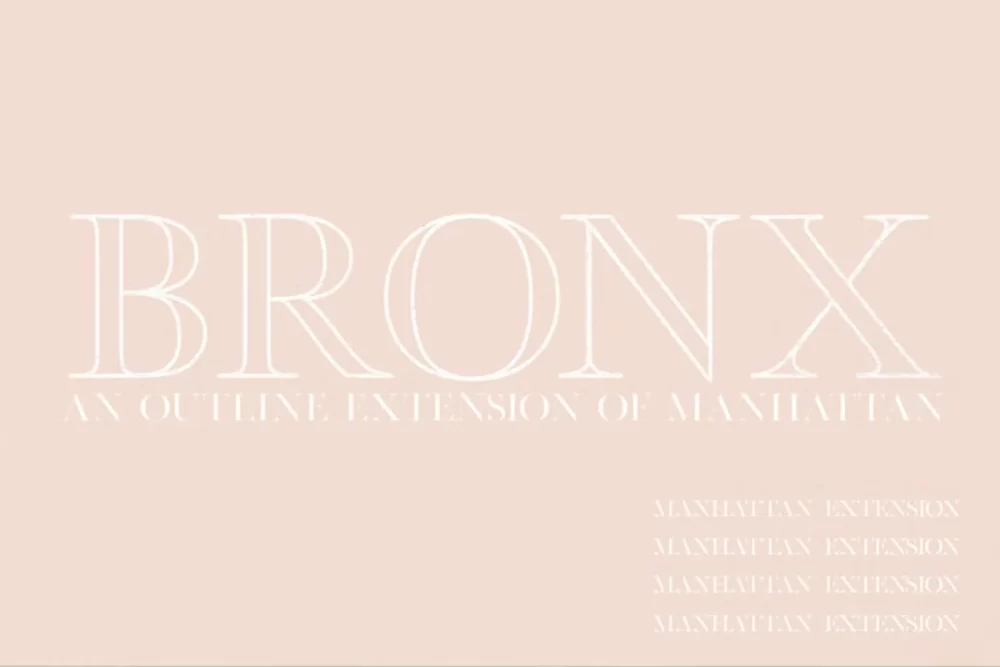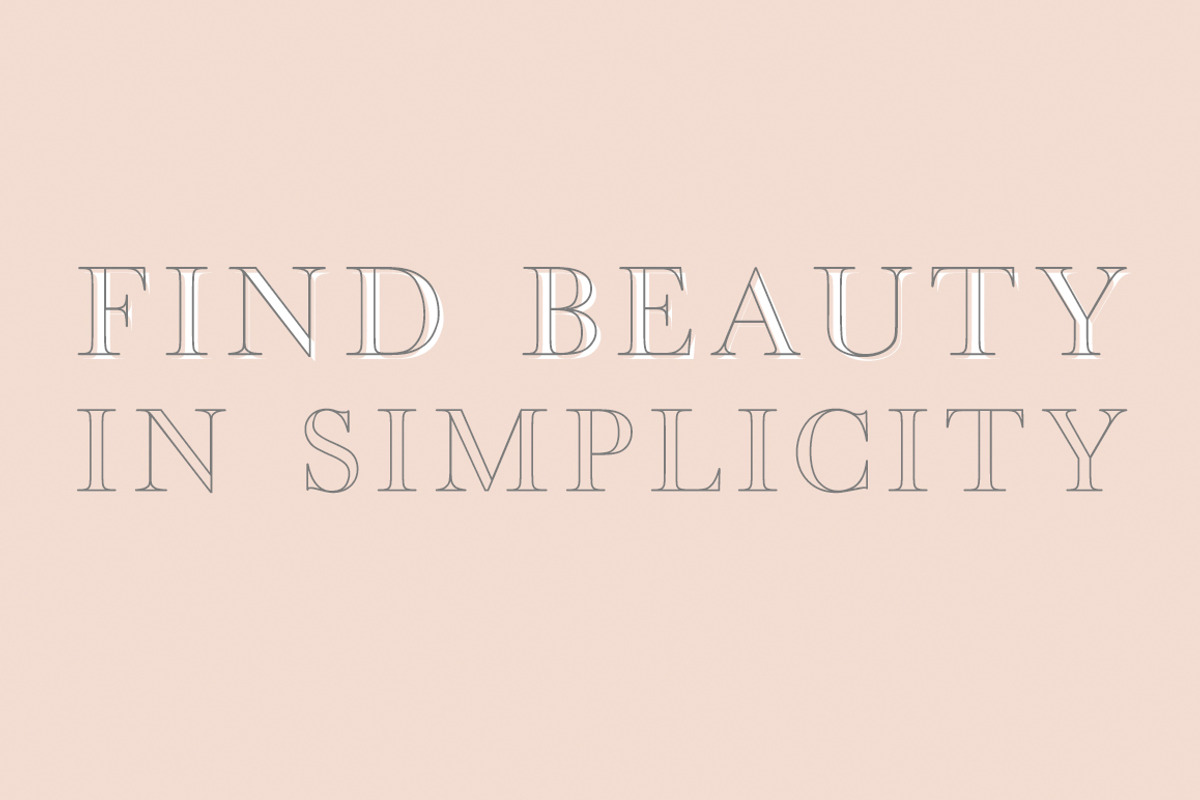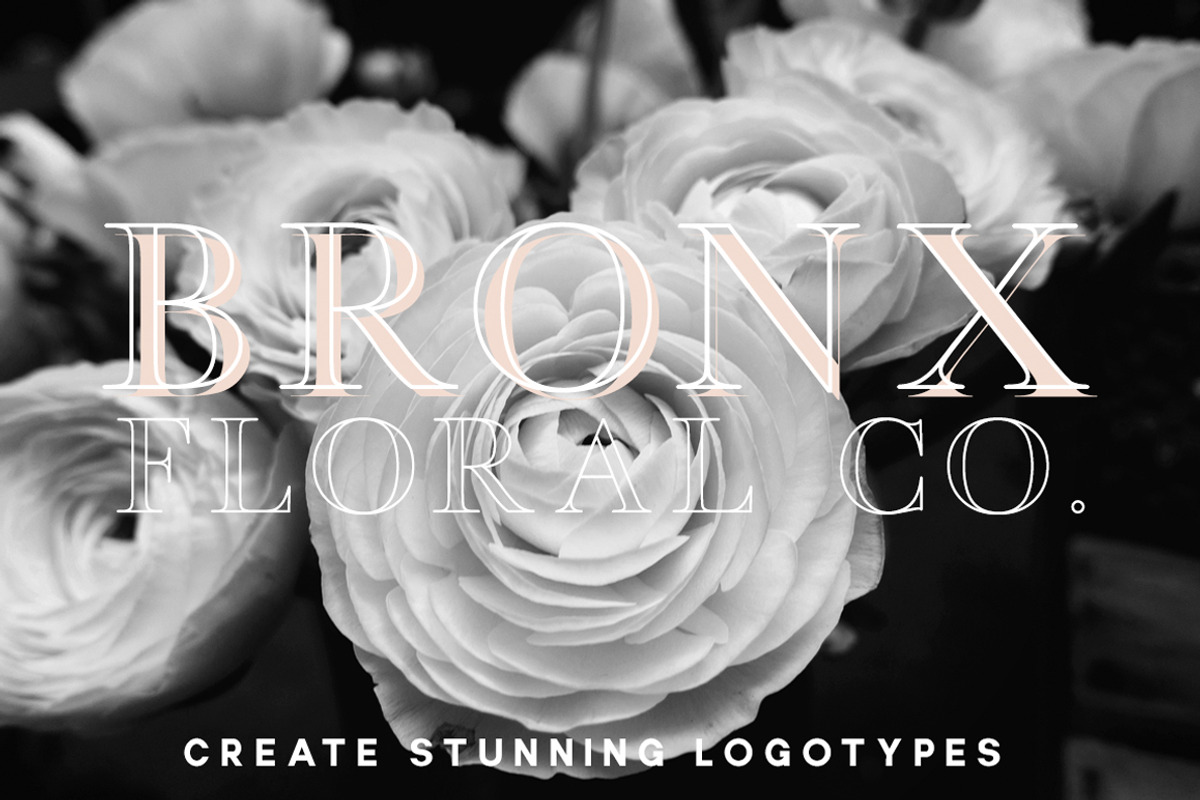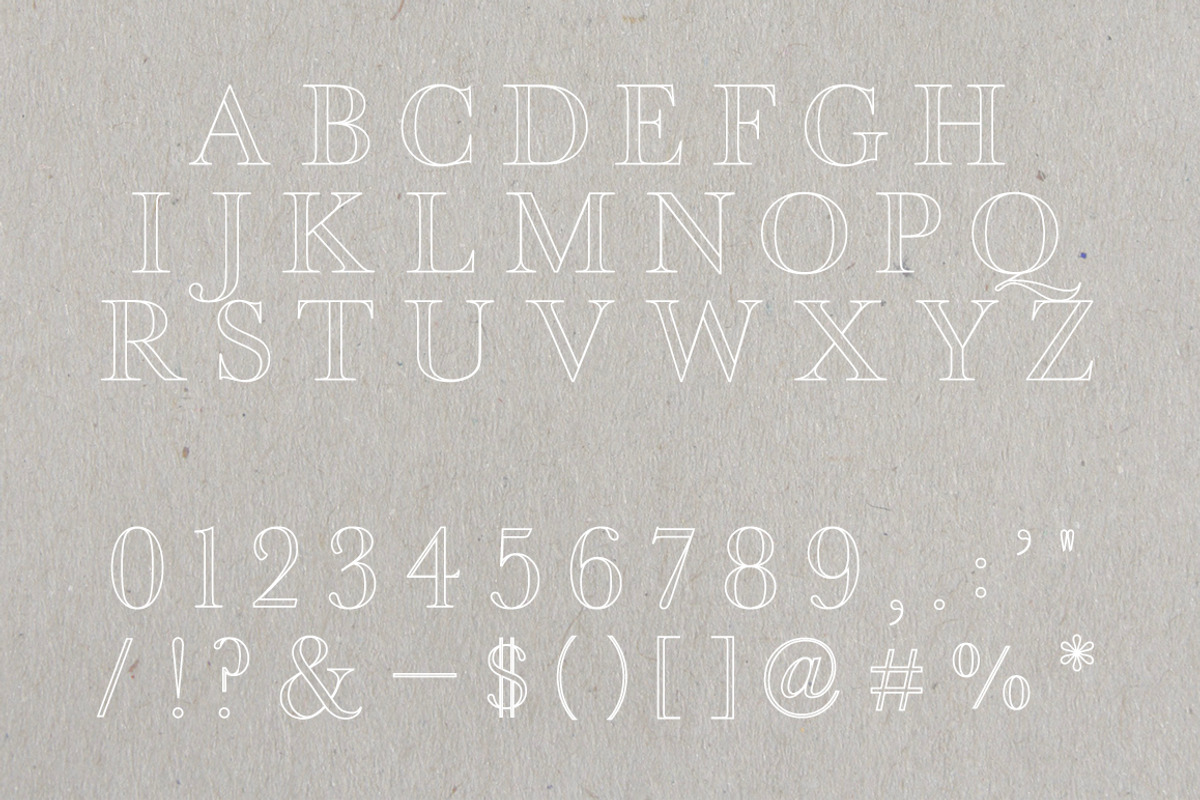
Bronx is a beautiful outline font! Create stunning logotypes, beautiful headers, and so much more with this beautiful combo. It’s also perfect for invitations, magazines, and print design.
- Capital letters
- Numbers + punctuation